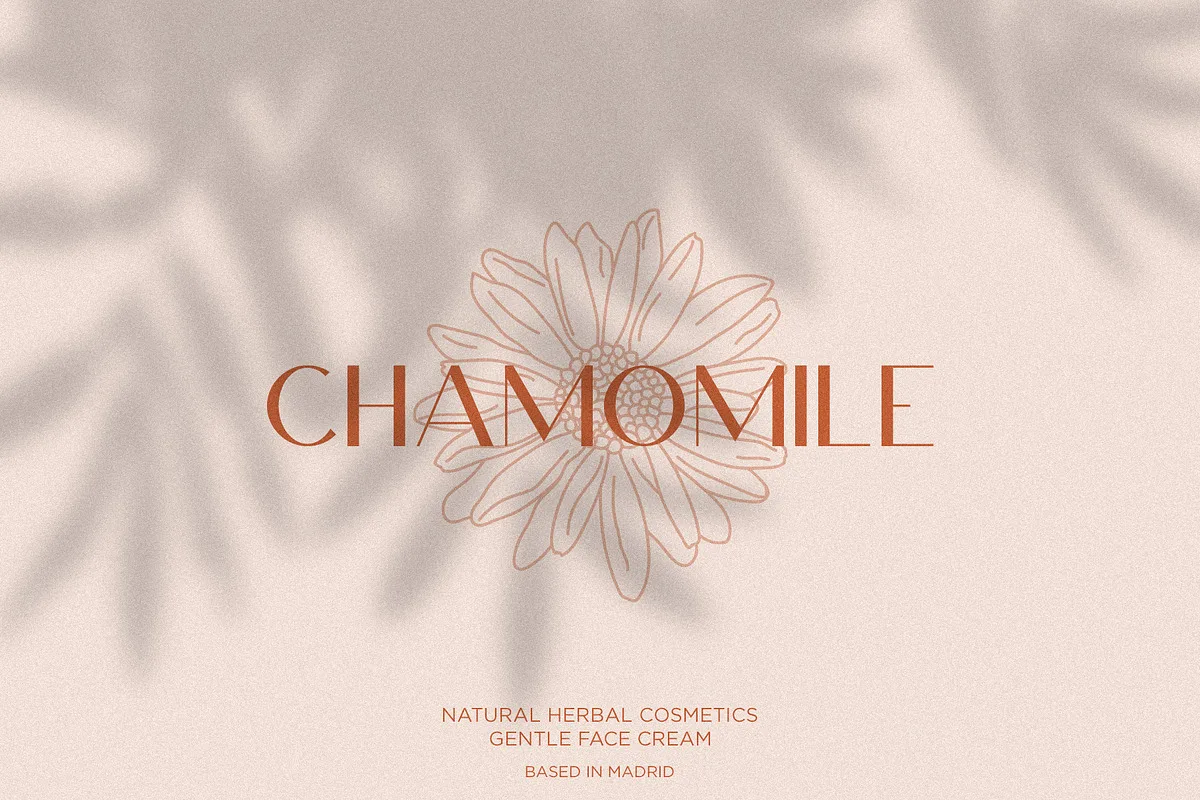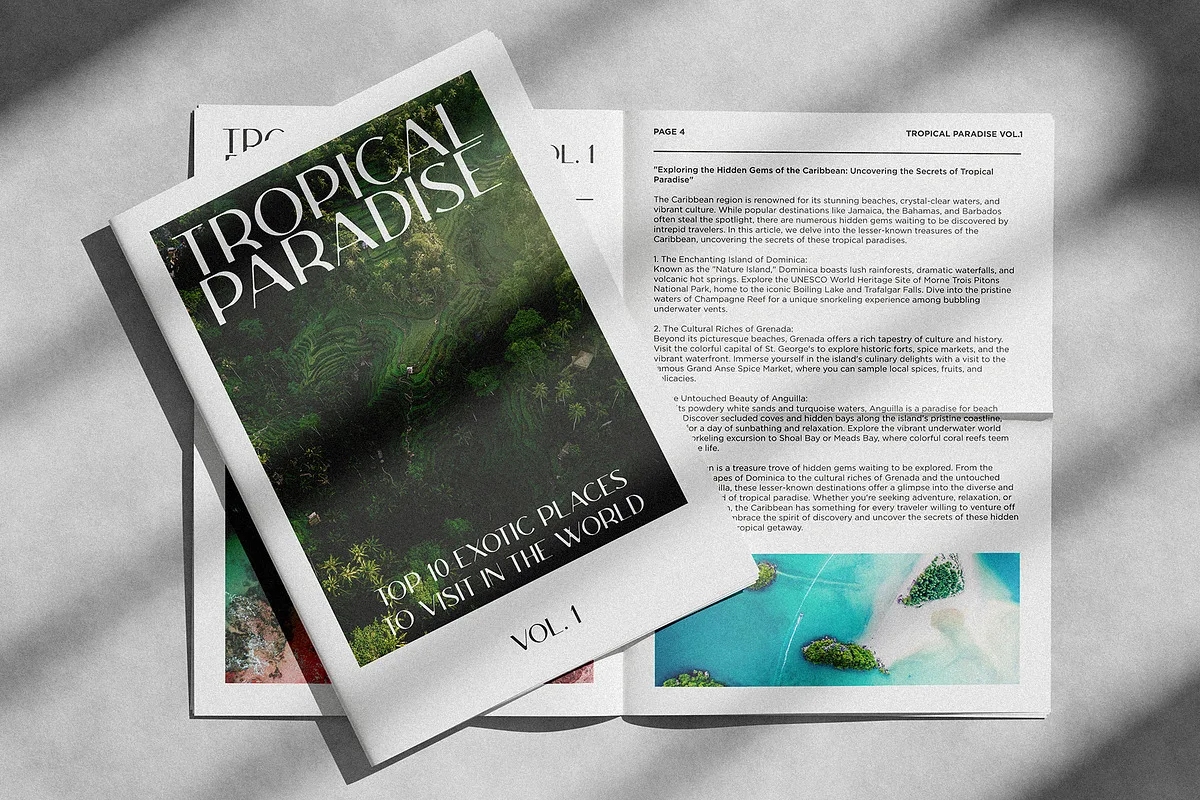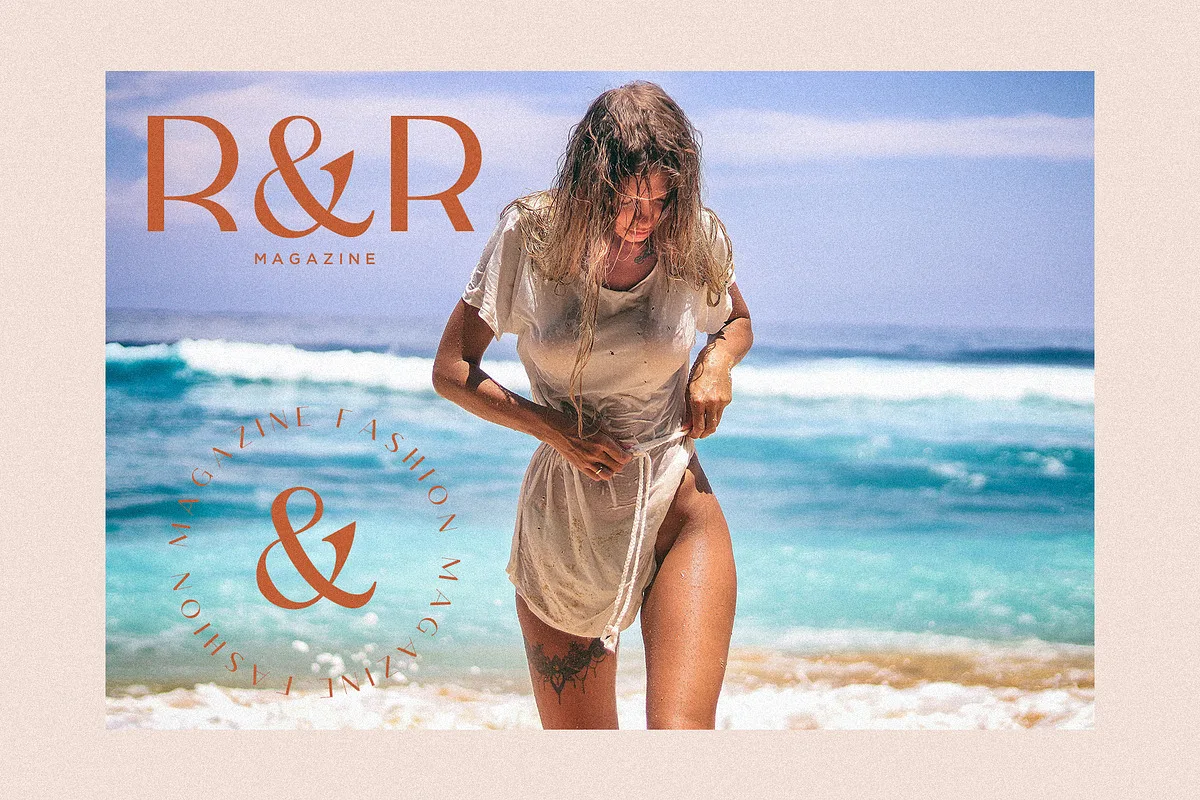
Aurora is an elegant & modern sans serif font with special alternative letters and with multilingual support. It is perfect for logo design, magazine headers, product packaging, branding projects, clothing or simply as a stylish text overlay to any images or websites.